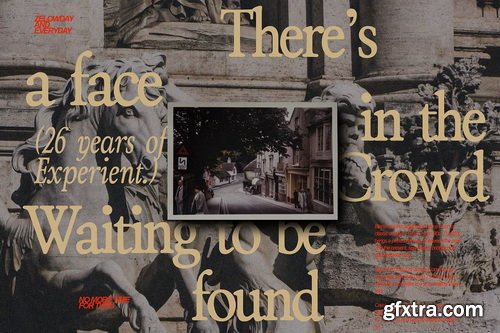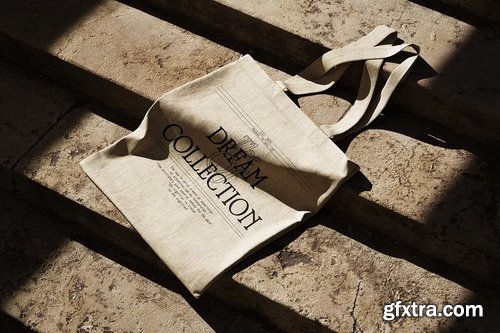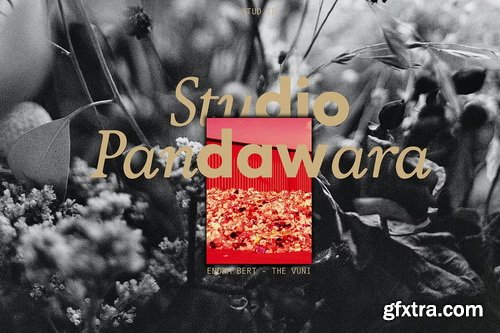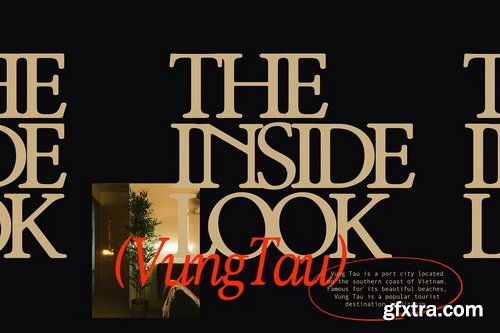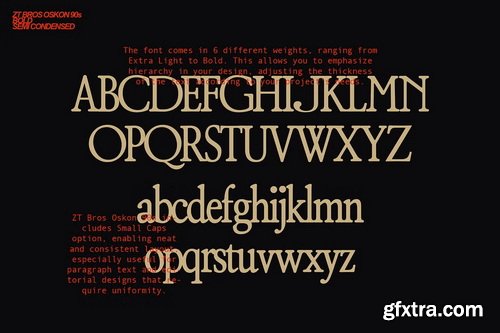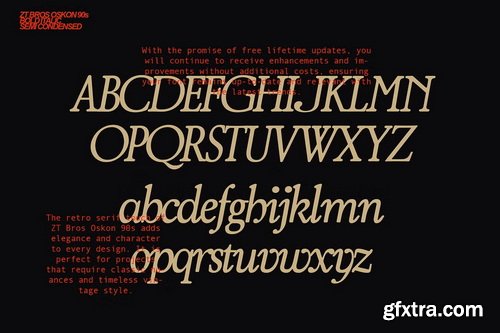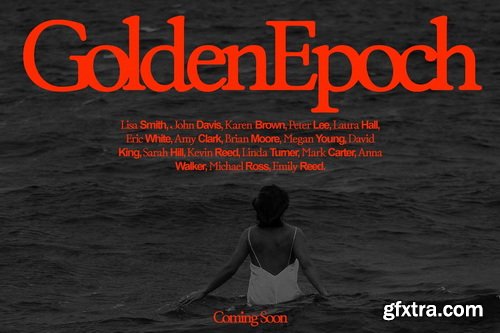
CreativeMarket - ZT Bros Oskon 90s - 72 Styles
- ZT Bros Oskon 90s is a captivating typographic creation that seamlessly blends the aesthetic charm of the 1990s retro era with a modern touch. With unmatched serif elegance and a unique 90s style, this font offers 72 variations, including sharp condensed forms, graceful expansions, and captivating italic styles.
- Every character in ZT Bros Oskon 90s is meticulously crafted, creating a vintage ambiance that is truly enchanting. Featuring 6 font weights ranging from Extra Light to Bold, this font provides you with the flexibility to create a wide range of striking and memorable designs.